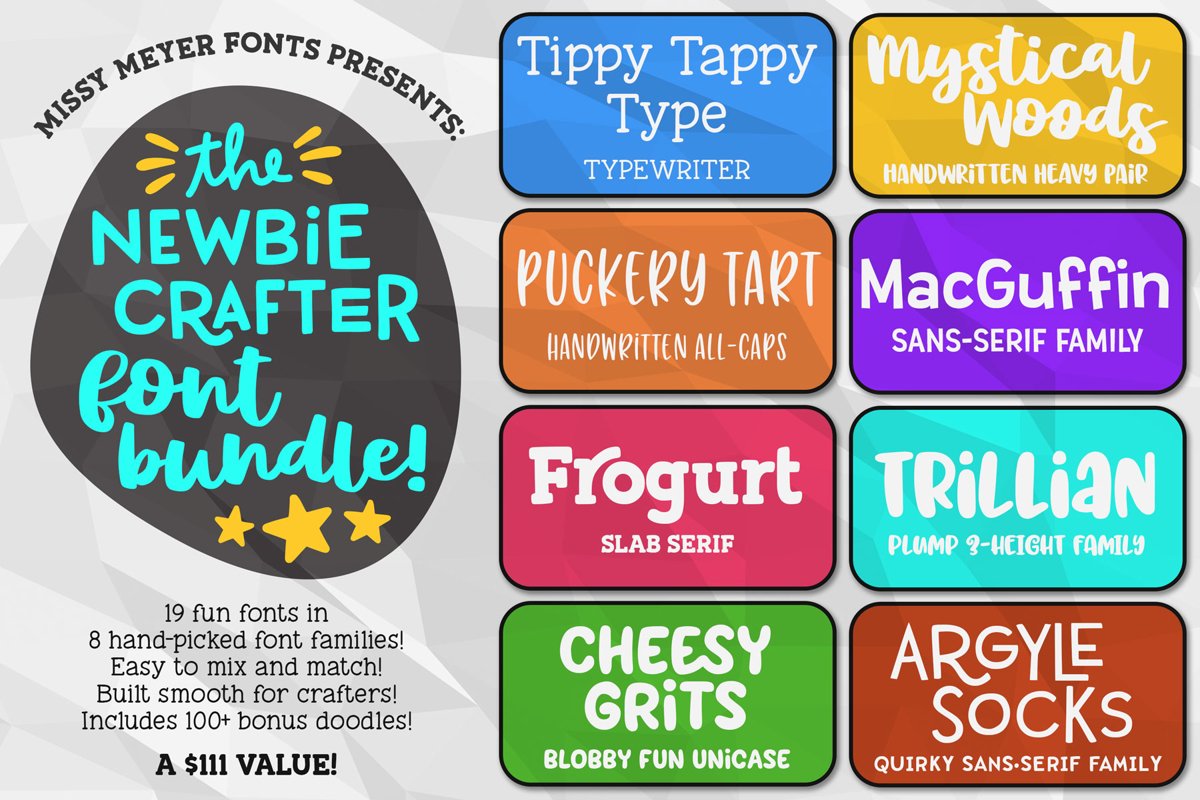
The Newbie Crafter Font Bundle - 8 fun & smooth families!
New year, new bundle! Fresh for 2020, I've bundled together 8 great font families as a launching pad for new crafters who are looking to start their font collection. (Though it's great for experienced font users as well!)
All 8 families in this bundle contain fonts that have been cleaned up so that they're sharp and crisp whether you're creating printed or cut projects. I've included fonts from several "plainer" categories like slab serif, sans-serif, and typewriter, as well as several handwritten fonts, with an eye toward giving you a great base set of cute, playful fonts that can mix, match, and work well together.
- Argyle Socks (3 fonts: Thin, Regular, Thick)
- Cheesy Grits (2 fonts: Regular, Slim)
- Frogurt
- MacGuffin (4 fonts: Regular, Condensed, Wide, Jumble)
- Mystical Woods (4 fonts: Rough Script, Rough Caps, Smooth Script, Smooth Caps)
- Puckery Tart
- Tippy Tappy Type
- Trillian (3 fonts: Shorter, Regular, Taller)